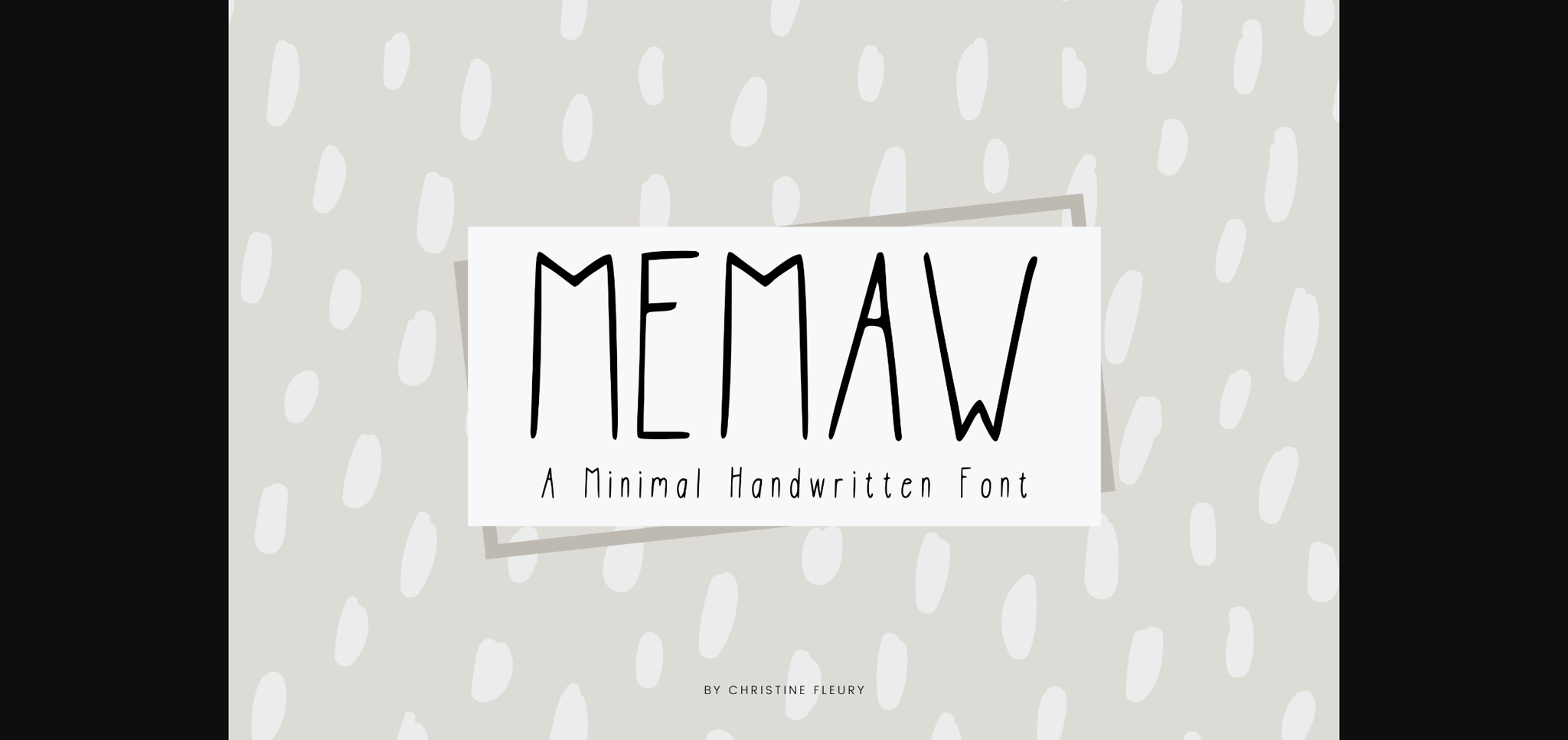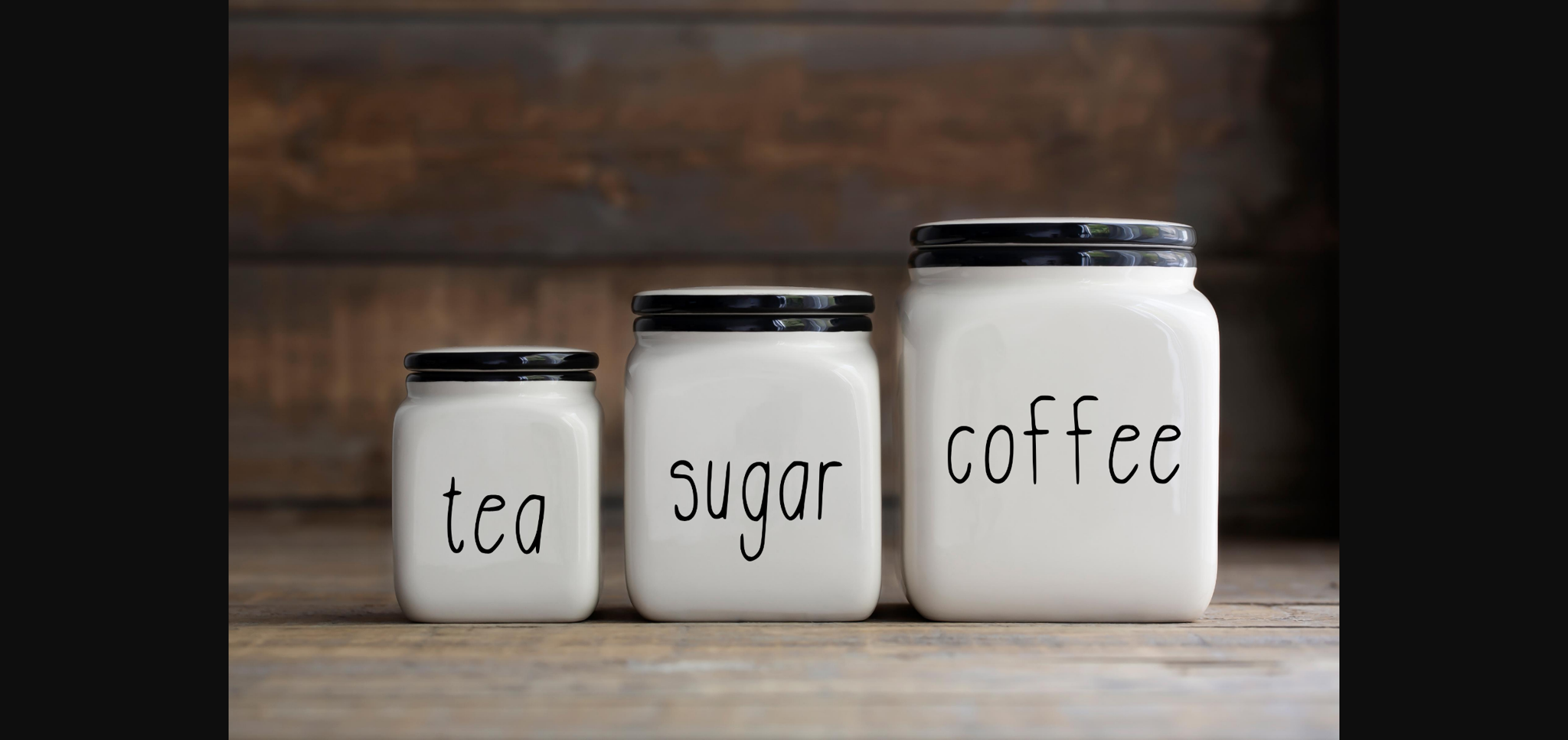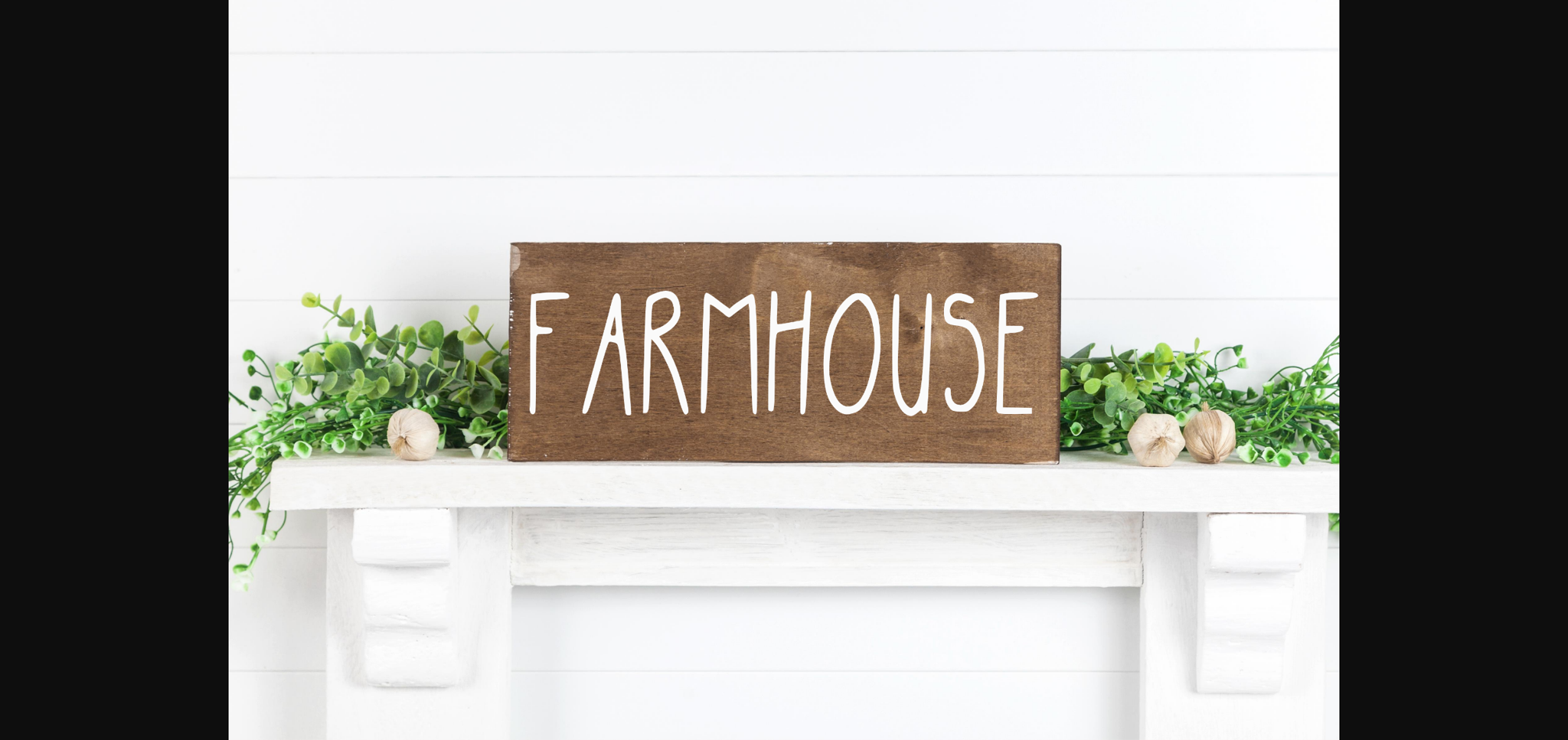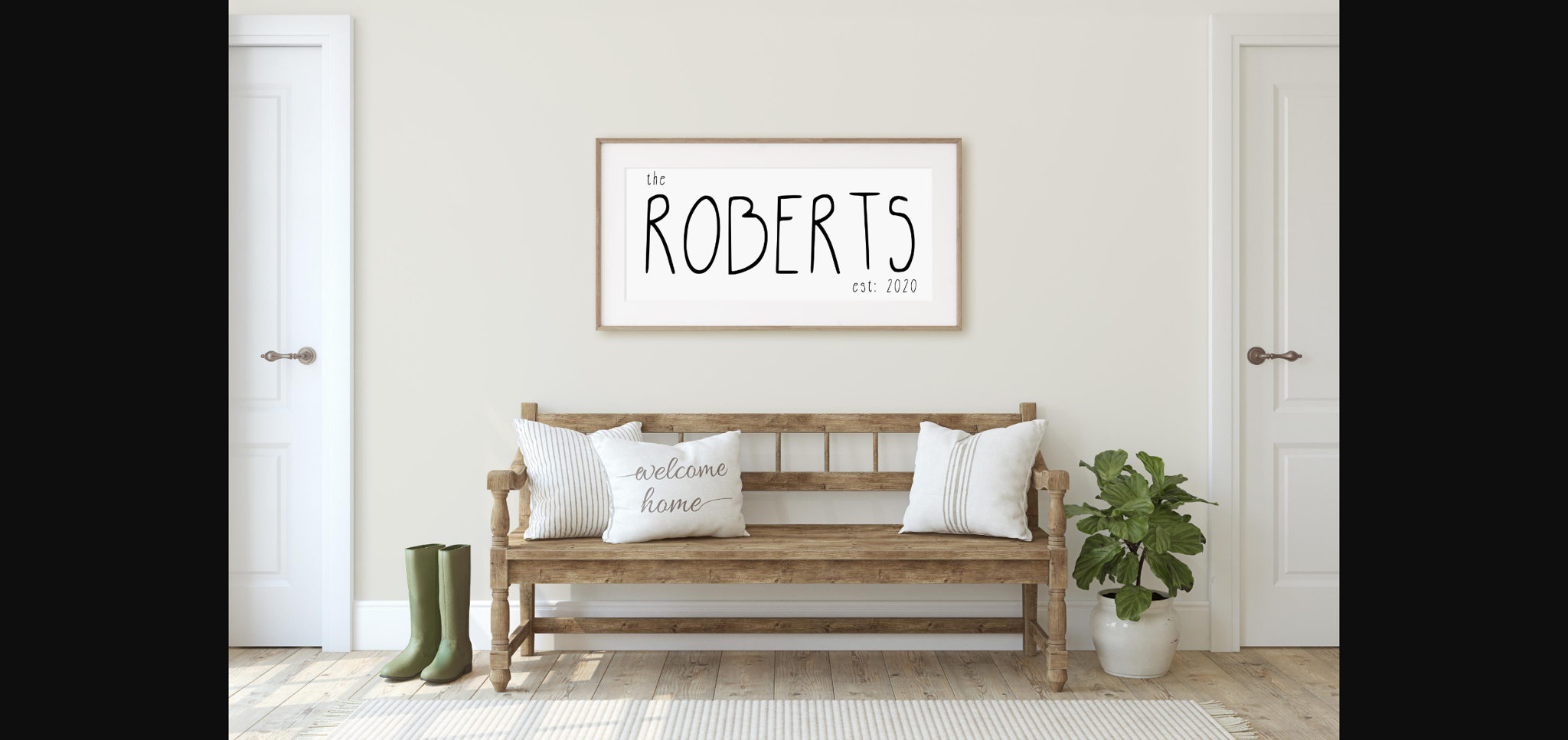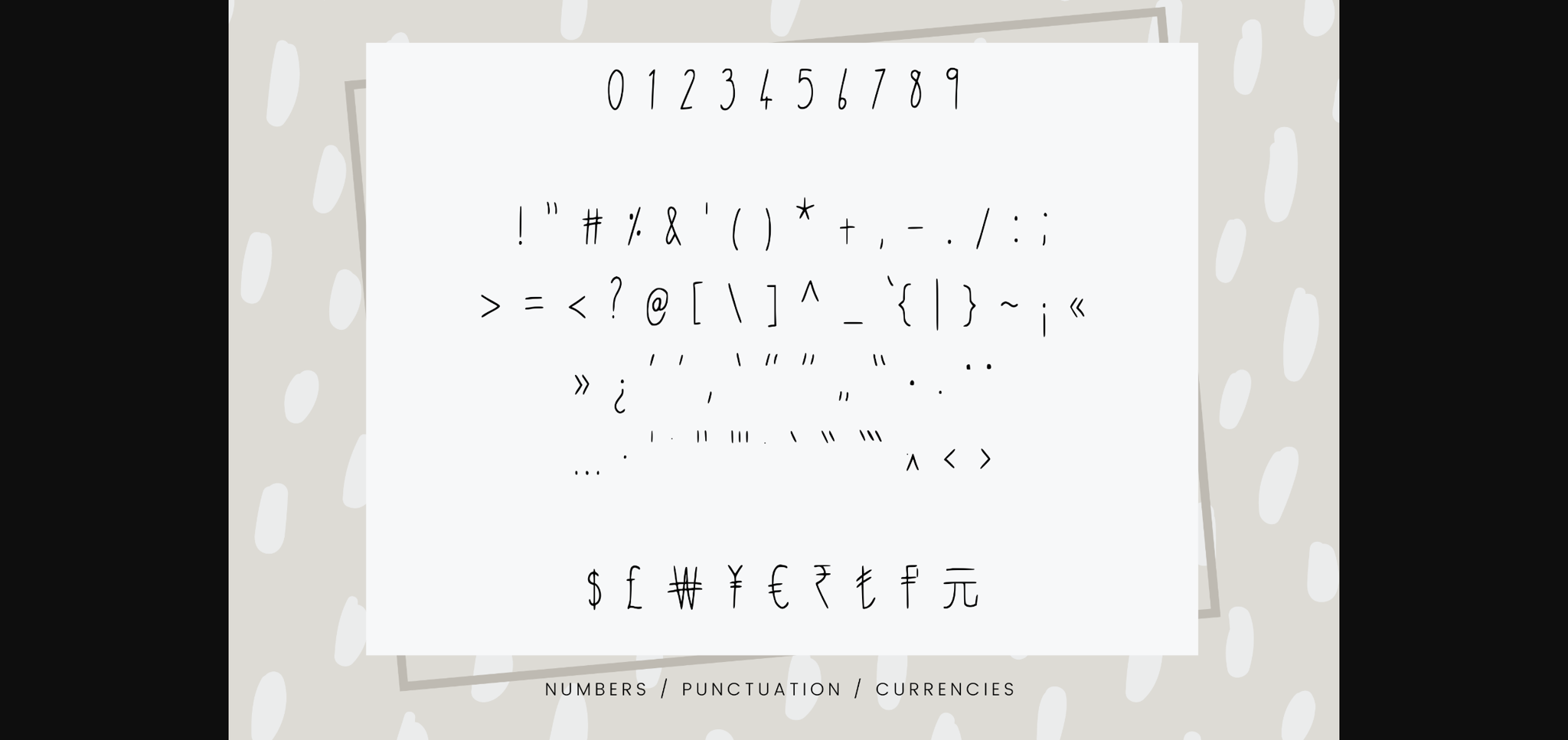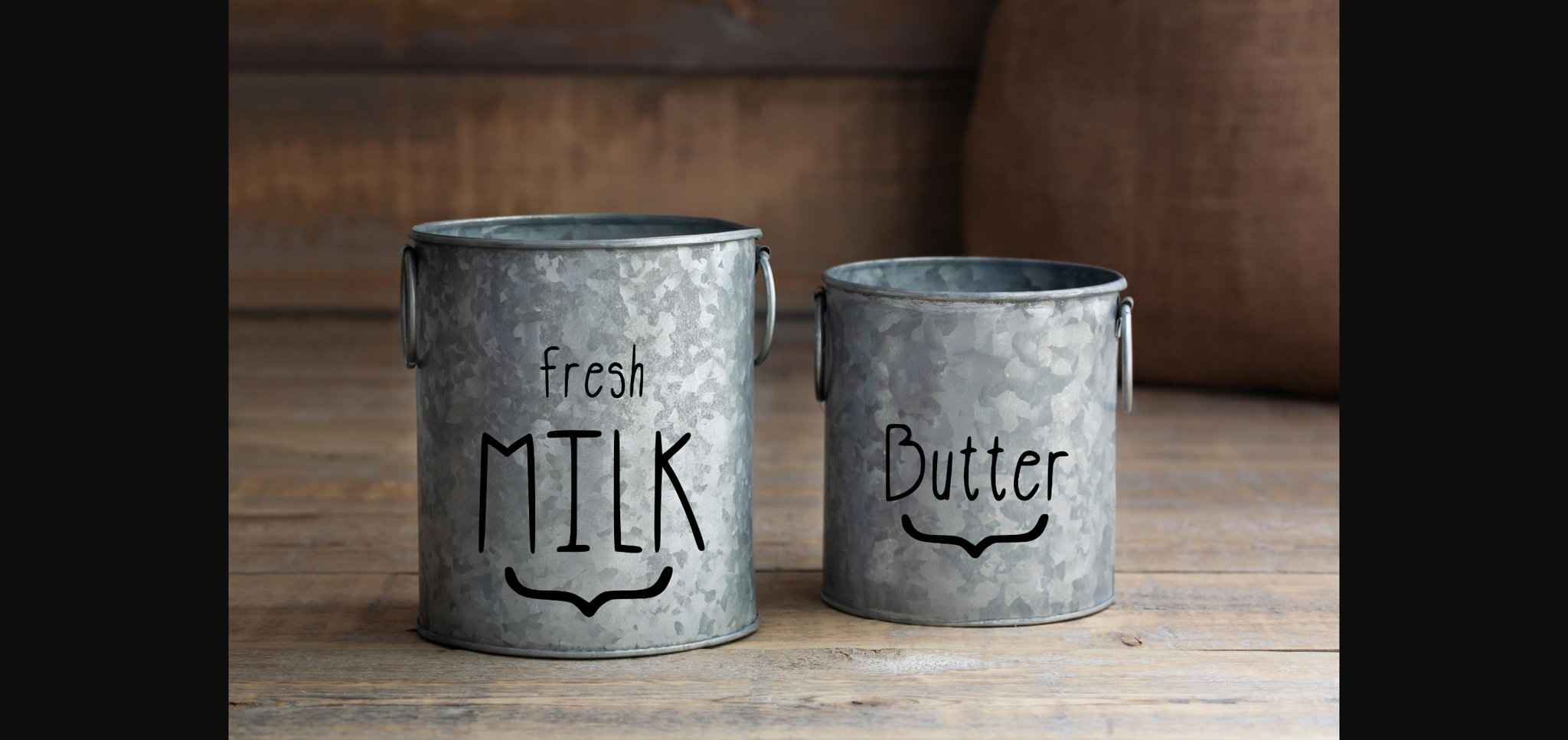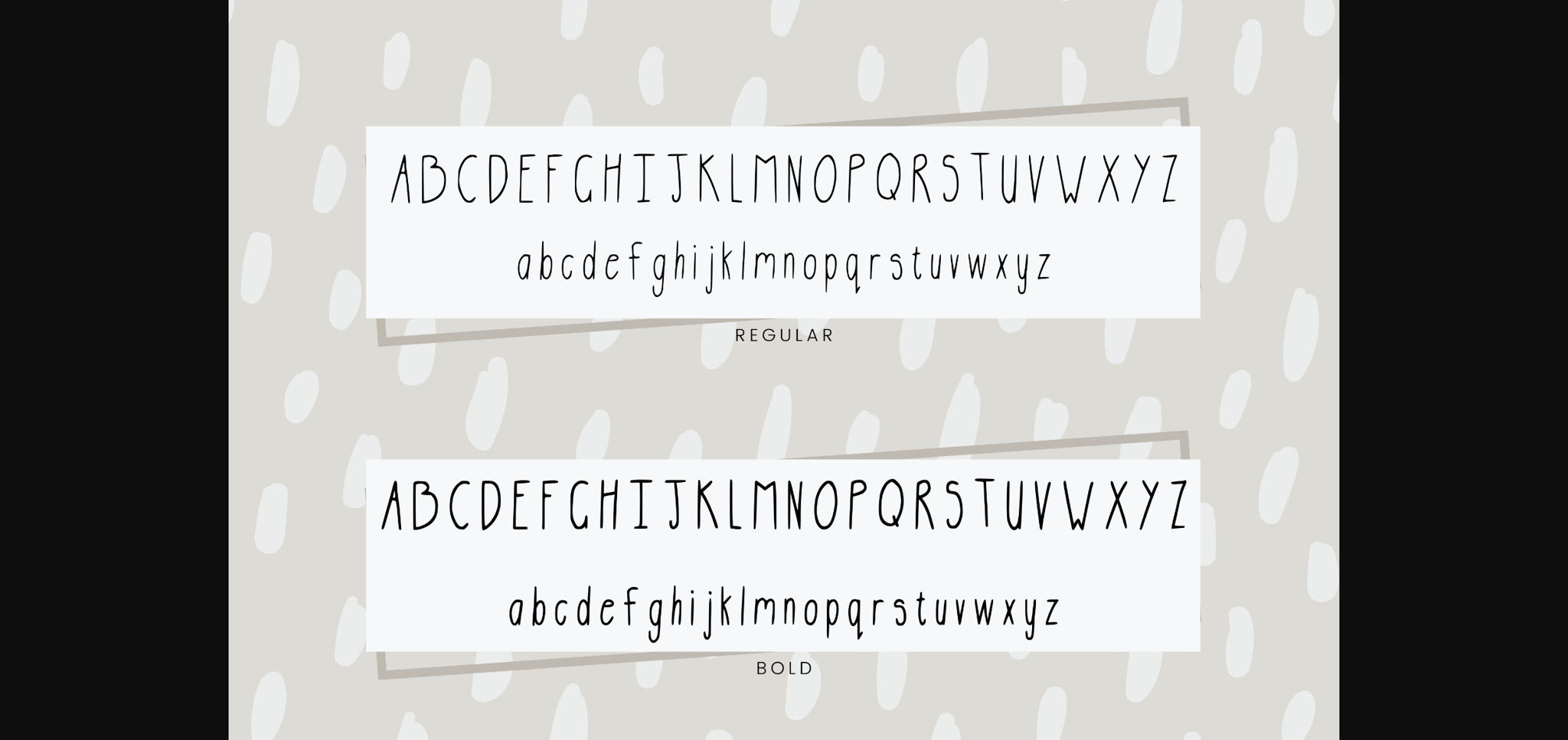
MeMaw is an elegant and simple sans serif font. This original look will appeal to a wide range of crafty ideas, from letterheads and titles, to stationery.